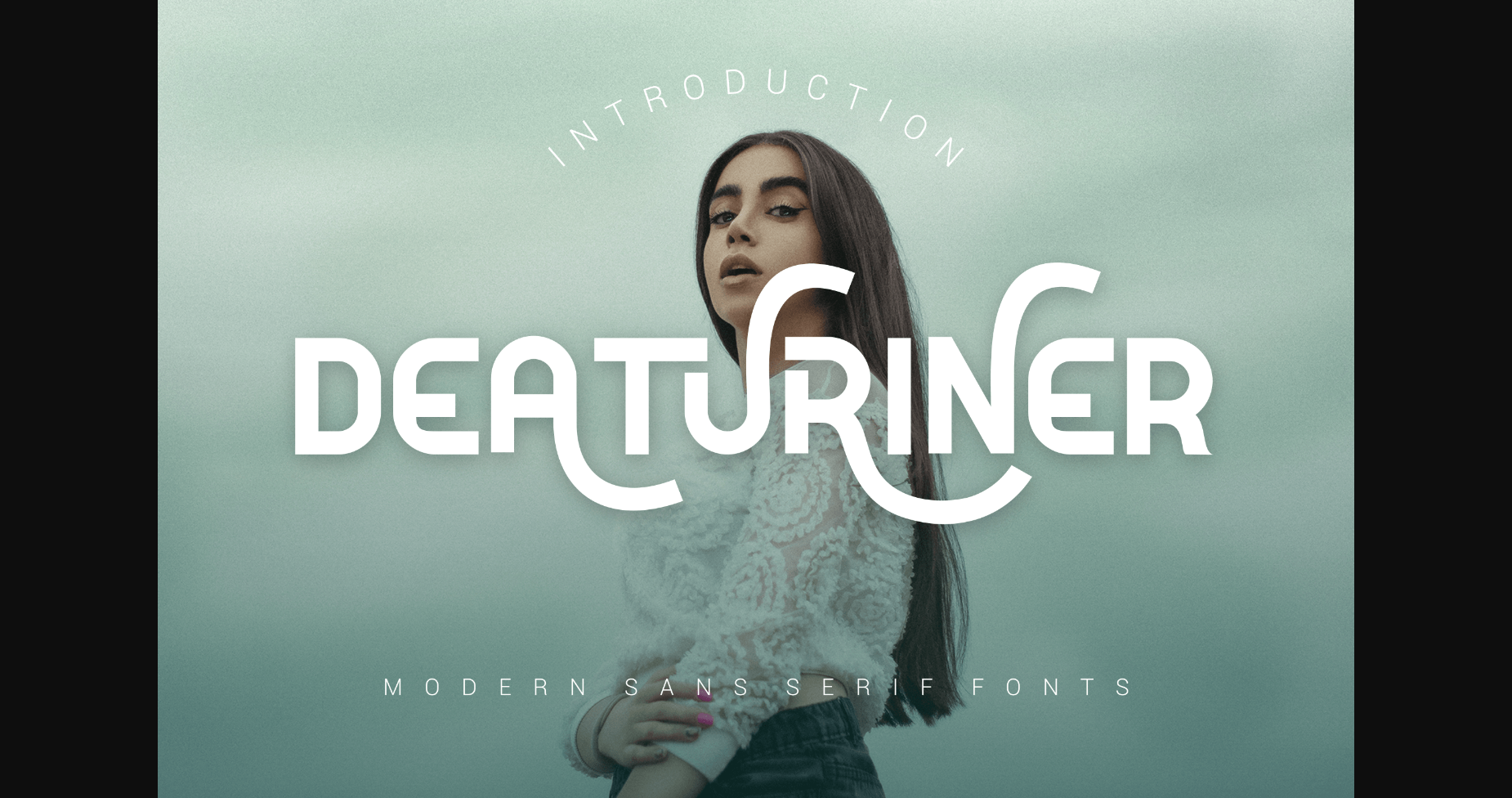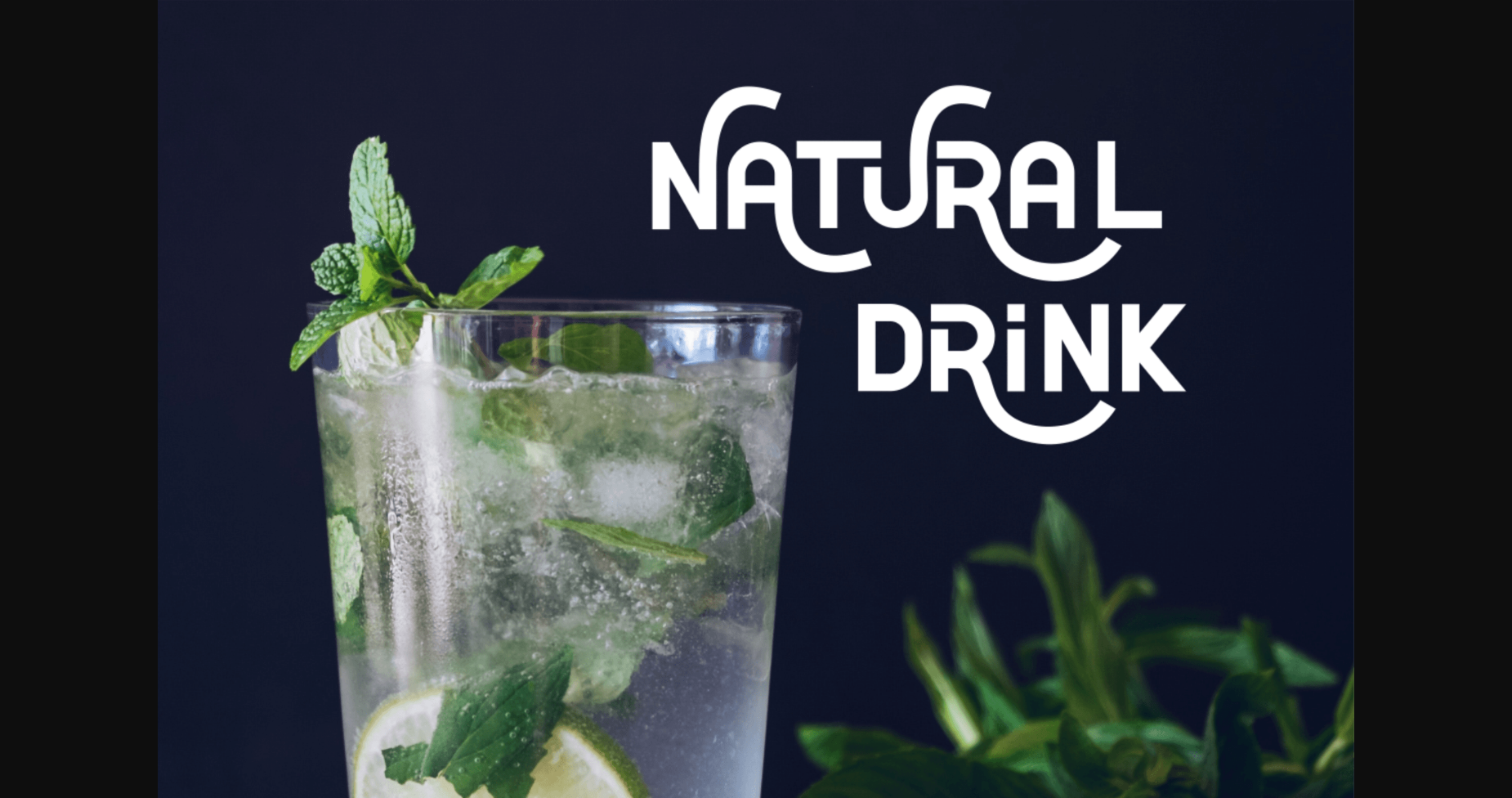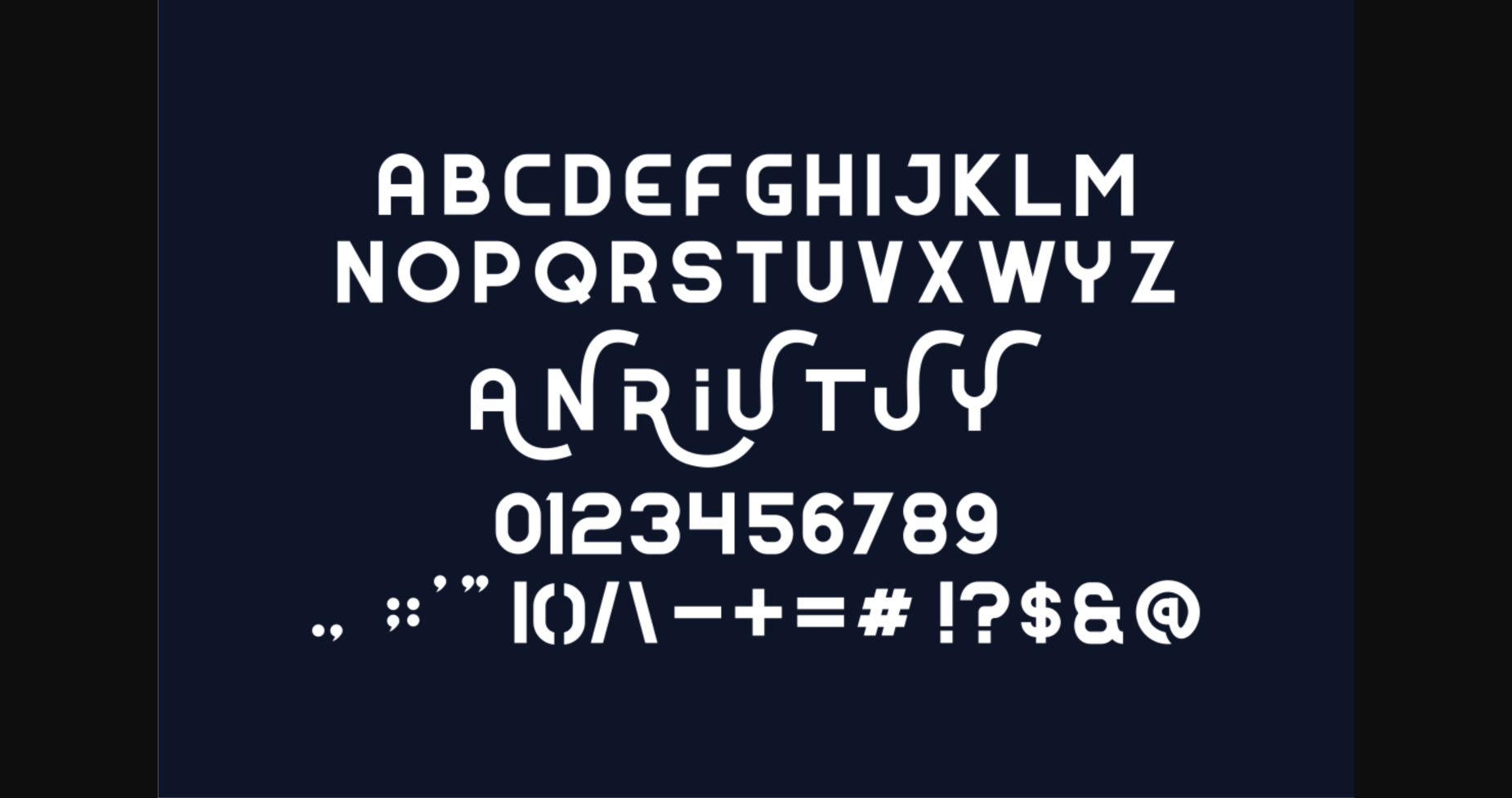
HomeSans Serif FontsDeaturiner Font Sans Serif Fonts Deaturiner Font FacebookXPinterestWhatsApp 1 of 5 ... Deaturiner Font Poster 2... Deaturiner Font Poster 3... Deaturiner Font Poster 4... Deaturiner Font Poster 5... About Deaturiner Font Deaturiner is a modern, bold, and authentic sans serif font. The font is suitable for any branding project like logo, t-shirt printing, export, and many more. It looks outstanding in a wide range of contexts. DOWNLOAD NOW People also explored Good Morning Font Charles Bridge Signature Handwritten Font Peony Hearts Ball Font Antara Font Blackbone Modern Calligraphy Font Philostrate Font Butterhome Font Cricket 260 0 TagsDeaturiner Font Previous articleFedora FontNext articleFather\’s Font LEAVE A REPLY Cancel reply Comment: Please enter your comment! Name:* Please enter your name here Email:* You have entered an incorrect email address! Please enter your email address here Website: Save my name, email, and website in this browser for the next time I comment. Personal Use Free Omellia Personal Use Free Read more about this font Concre Personal Use Free Read more about this font Shelly Personal Use Free Read more about this font Bamboomoe Personal Use Free Read more about this font BLOG 5 Fonts That Will Dominate Design Trends in 2026 5 Fonts for 2026 That Will Dominate Design Trends Typography plays a critical role in visual communication, and as we look ahead to 2026, it’s... Exploring Font Trends How to Cut Any Font on Cricut: Convert a Font to SVG (Free) Top 7 Google Fonts Alternatives for Faster and Privacy-Friendly Web Design (2025)